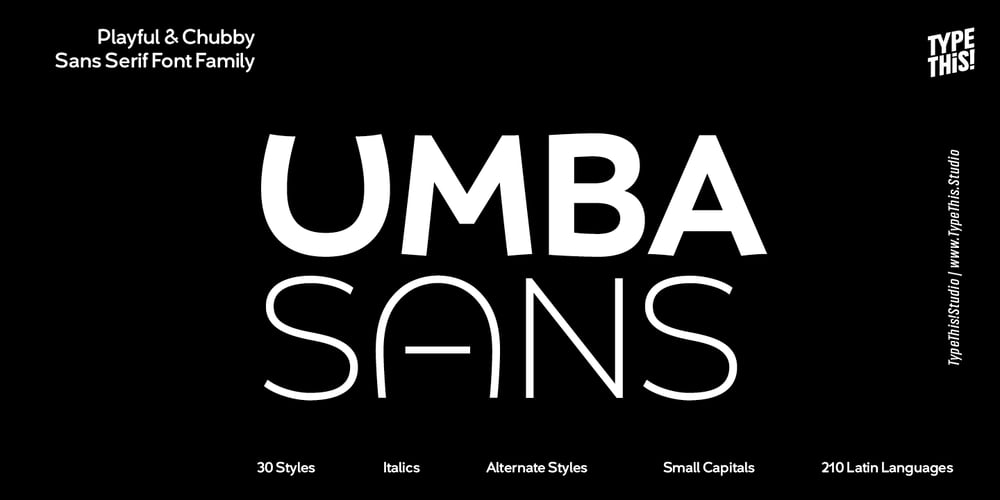
Umba Sans Font Family was designed by Anita Jürgeleit and published by TypeThis!Studio. Umba Sans contains 30 styles and family package options. UMBA Sans is a contemporary typeface designed by Anita Jürgeleit. The wide shaped curves show a new aesthetic appeal in an unexpected pleasant way. Umba Sans fulfills your corporate design needs as well as your editorial demands and helps to push your design to the next level.Thirty styles from thin to bold and matching italics – as well as small caps and alternates – help you create a contemporary design. Umba Sans provides a wide range of variations. Your design may have many faces but it all matches together. Separate styles for alternate and small caps will show up in your font menu, making sure that you stay aware of the wide range of possibilities your new favourite typeface provides.If you like our fonts, you might want to sign up at:www.typethis.studio